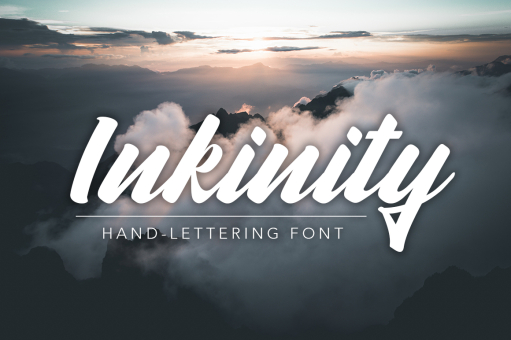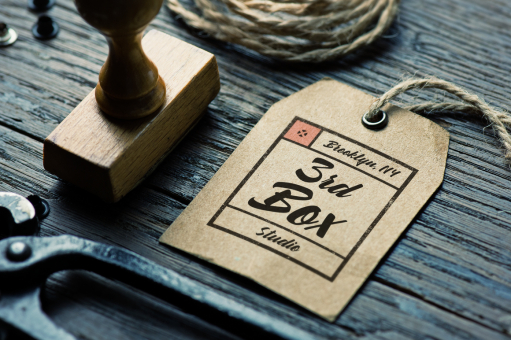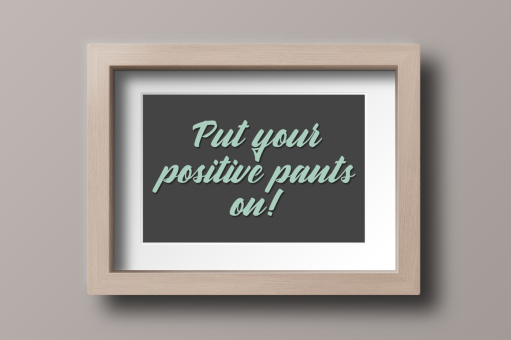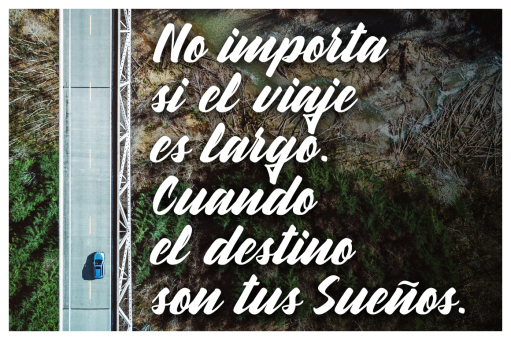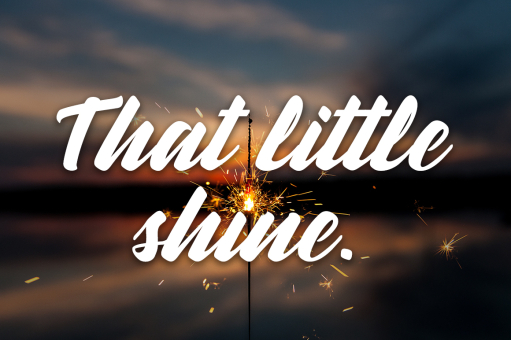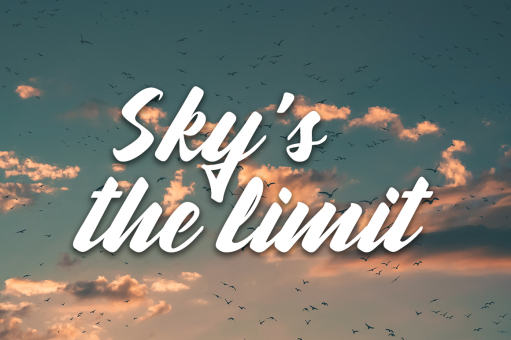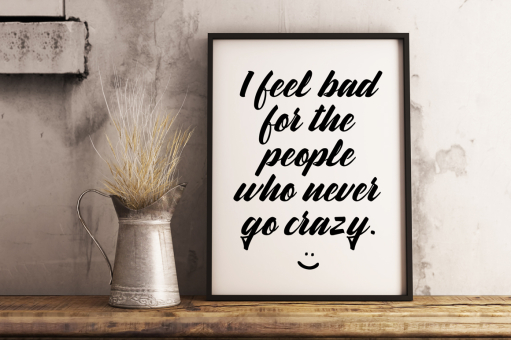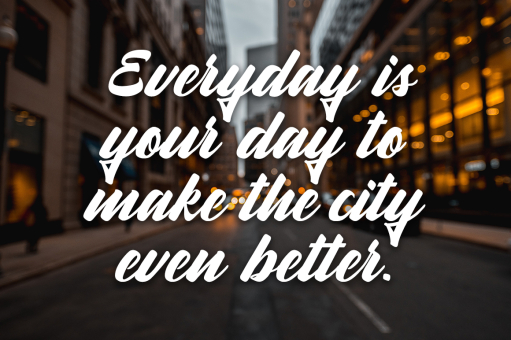
Inkinity
Introducing Inkinity, a hand-lettering font created from ink and paper to digital vector.
This typeface includes all uppercase and lowercase letters, numerals, punctuation, symbols and multilingual characters.
With over 70 multilingual characters and accents, Inkinity font supports more than 12 languages as English, Spanish, French, Italian, German, Swedish, Danish, Norwegian, Portuguese, Catalan, Finnish, Dutch among others. All characters can be checked on the presentation images.
Inkinity can be used in a range of items like logo design, packaging, posters, branding, book covers, quotes, magazines, wedding stationery and much more.
It works great for both modern and vintage style work. Ideal to give to projects a fresh lettering style.